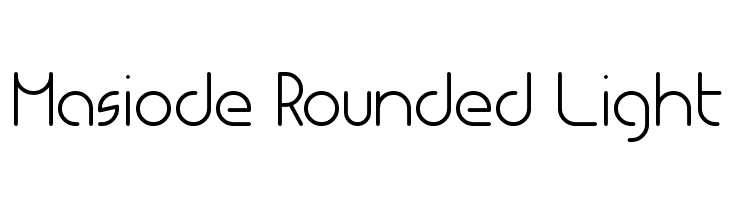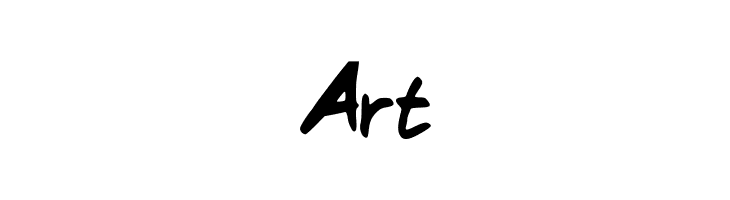
A modern, rounded font with a clean and approachable design.
An elegant serif font with high contrast and artistic flourishes.
A decorative font with intricate geometric patterns within square frames.
A bold, geometric font with blocky, angular characters.
A bold, rounded, hand-drawn font with a playful and energetic style.
A geometric, faceted font with sharp, angular edges.
A bold, distressed font with a vintage, rugged appearance.
A decorative font with horizontal line patterns creating a venetian blind effect.